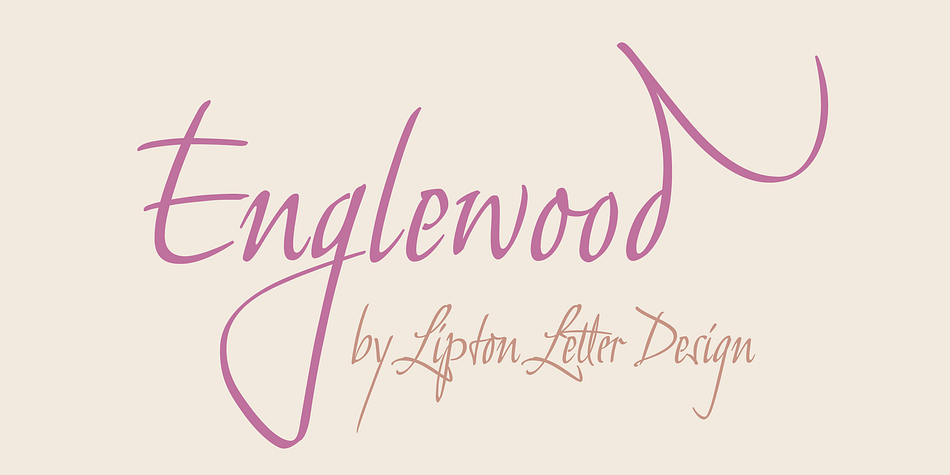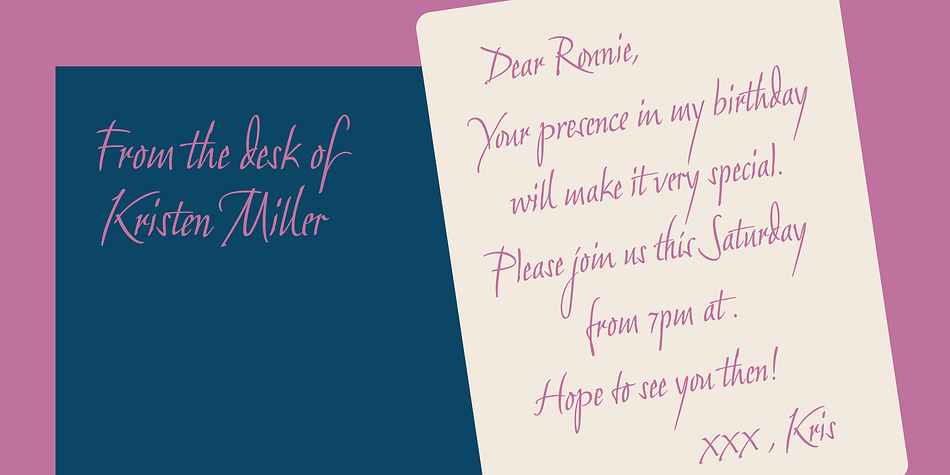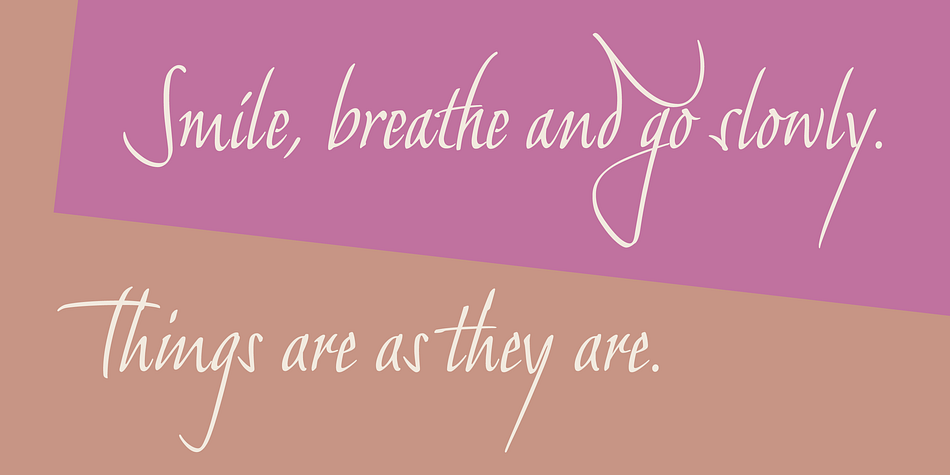
Designed by Richard Lipton, Englewood is a script font family published by Lipton Letter Design.
Richard Lipton’s inspiration for Englewood came from the calligraphic hand of Philip Grushkin. Lipton has always admired his somewhat loose but disciplined hand and felt that it was worthing of keeping this style alive in a typeface that could be a somewhat accurate emulation of the warm and life found in these letterforms. Spontaneity is a challenge to capture in a type treatment but with Englewood, Lipton hopes to honor Mr. Grushkin with a design that works especially well for an invitation, a menu, or in any display setting that calls for an informal calligraphic hand. This single weight display script includes small caps — somewhat of a rarity for a handwritten script — for flexible typesetting, along with 42 alternates that include 18 contextual ligatures to simulate the appearance of spontaneous writing.